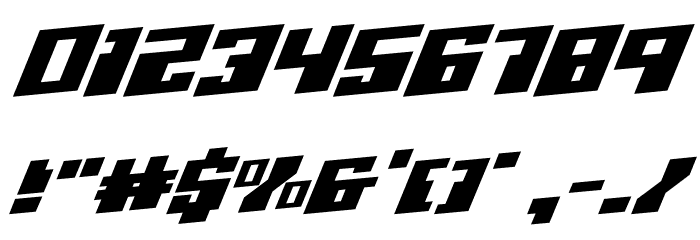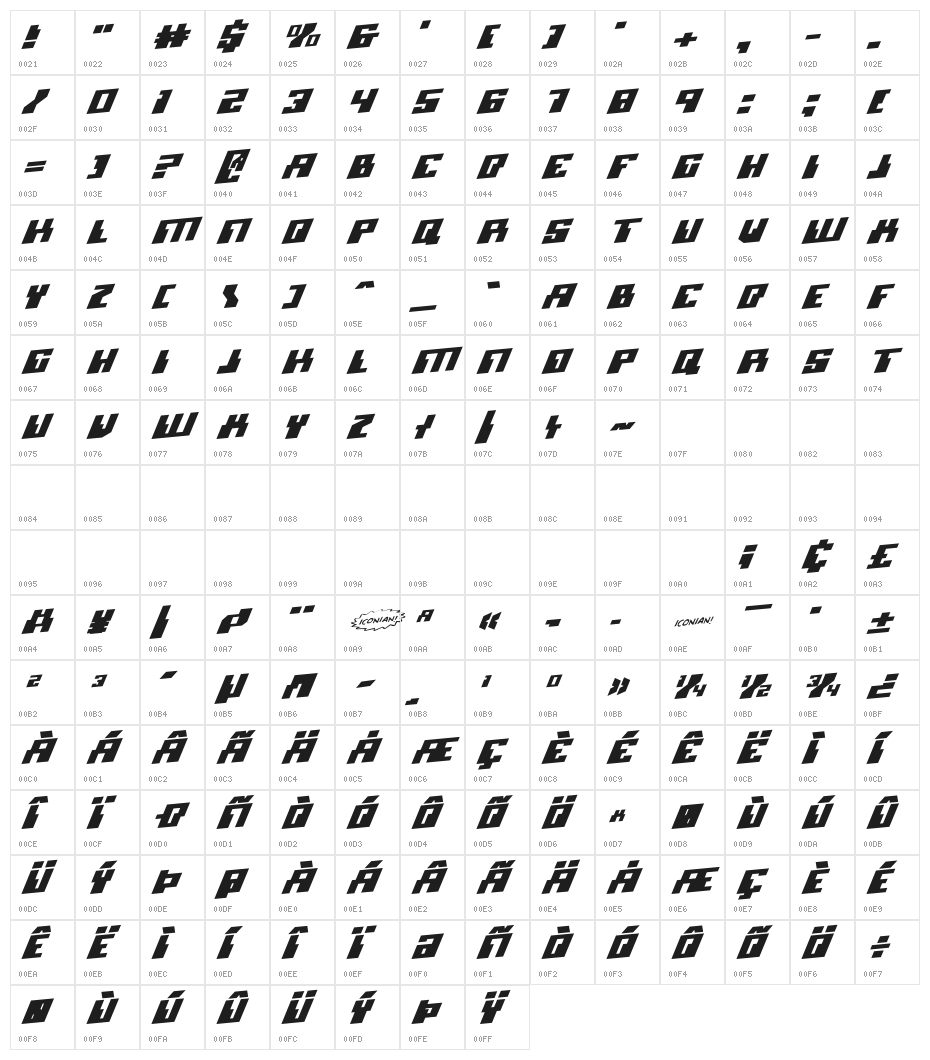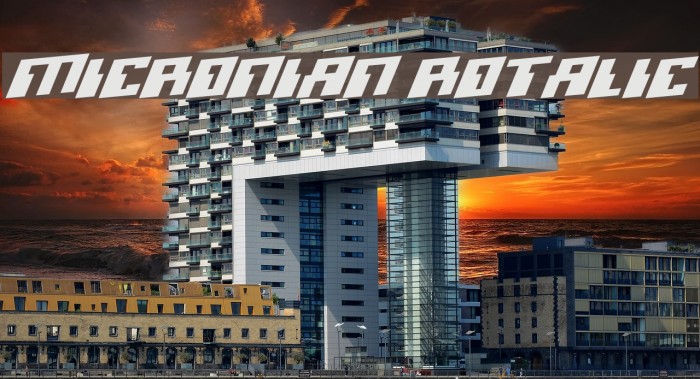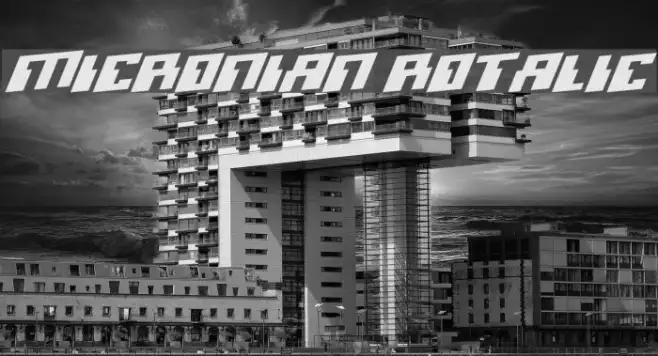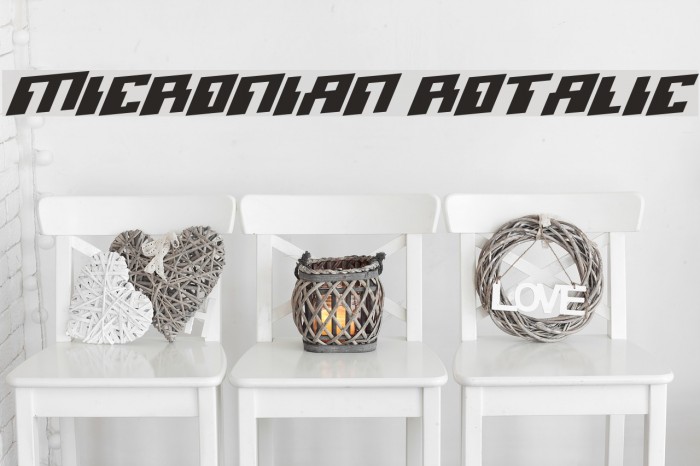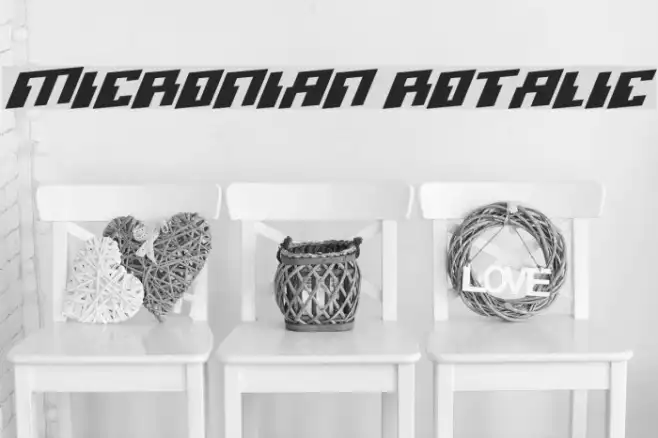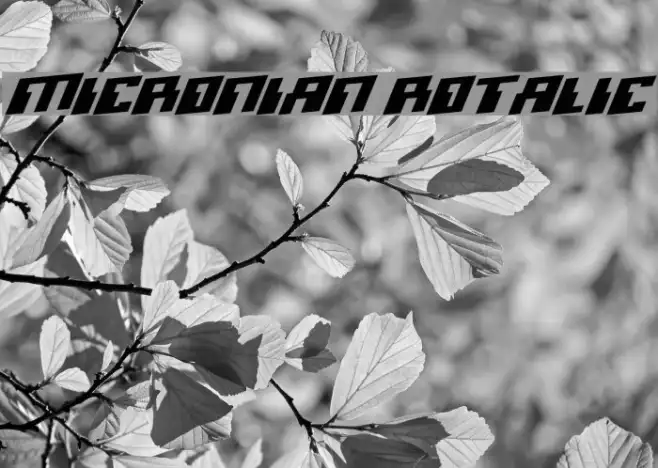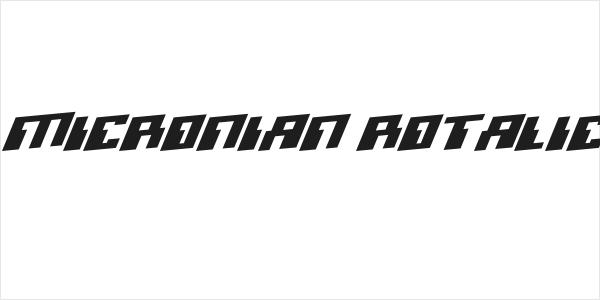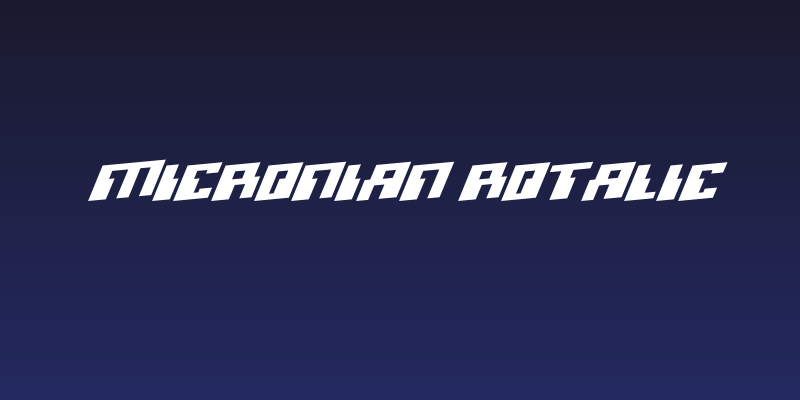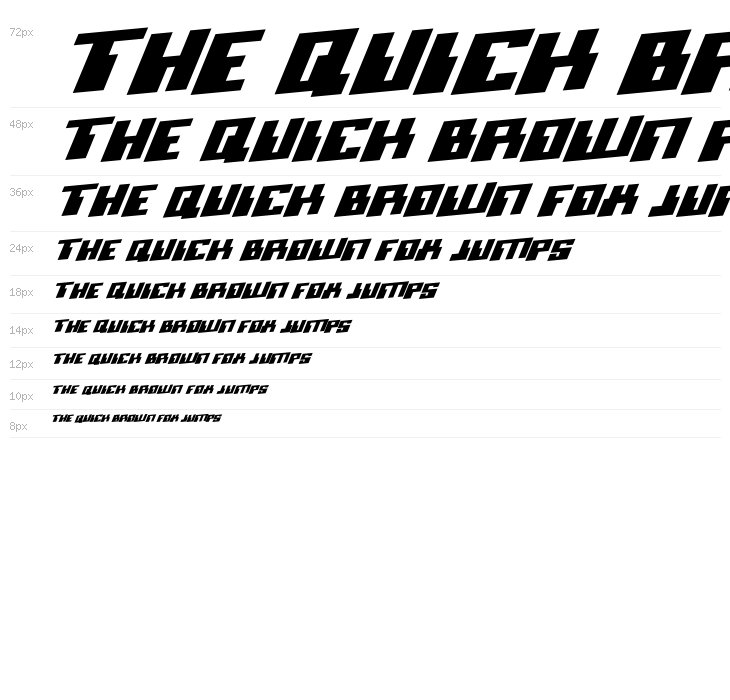
Micronian Rotalic Font
Micronian Rotalic Description
This font features a bold, angular design with a strong, futuristic aesthetic. The characters are sharply cut with a consistent slant, giving a sense of motion and dynamism. The uppercase and lowercase letters maintain a uniform style, with the lowercase slightly smaller but equally bold. Numbers and special characters follow the same angular, italicized pattern, ensuring a cohesive look across all glyphs. The font's unique style makes it stand out, ideal for projects that require a modern, edgy appearance.
Proposed ProjectsIdeal for sci-fi themed designs, video game titles, tech branding, and modern posters.